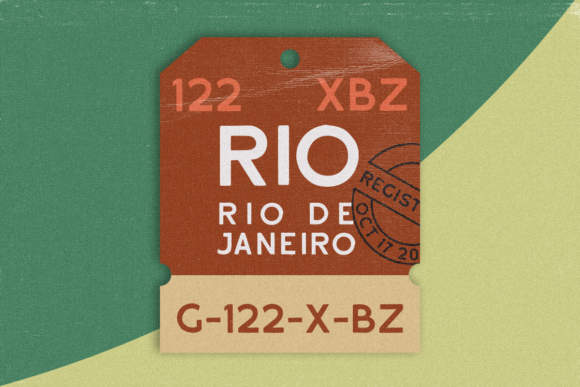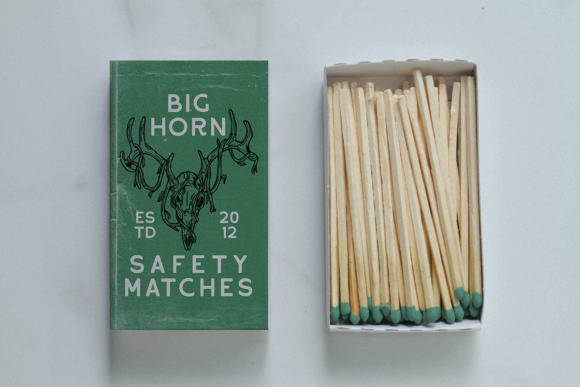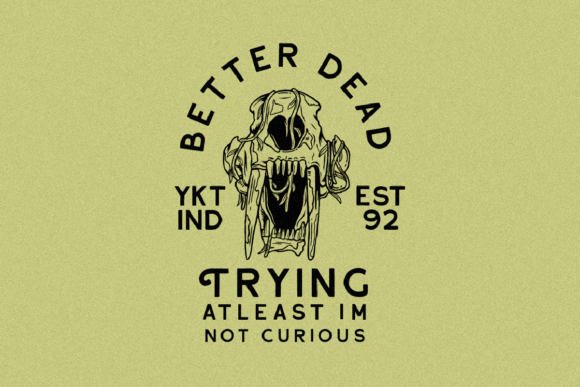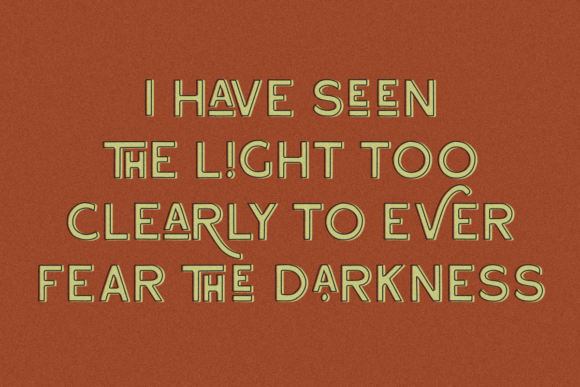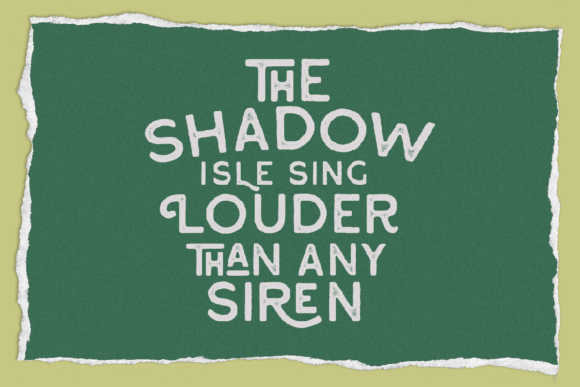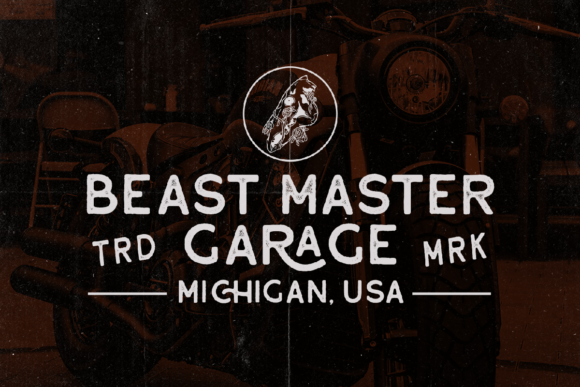
Introduction to Reliva Font
As a designer, there’s nothing quite like the rush of creativity that comes with finding the perfect font for your next project. You’ve spent hours poring over design resources, searching for that elusive combination of style and functionality. And then, it happens – you stumble upon a gem that makes your design dreams come true.
Discovering the Magic of Reliva Font
Meet Reliva Font, a stunning organic sans serif font that’s about to revolutionize your design game. With its wide range of alternates and ligatures, this font offers unparalleled versatility and creativity. Whether you’re working on a high-quality brochure, a free download for a charity, or a design project with a transparent background, Reliva Font has got you covered.
Unlocking the Full Potential of Reliva Font
Not only does Reliva Font boast an impressive range of features, but it also comes with 6 bonus illustrations that will take your creative project to the next level. With its high-quality design and transparent background, this font is a must-have for any serious designer looking to elevate their work. So why wait? Download Reliva Font today and unlock a world of creative possibilities!
Key Features of Reliva Font
- Unique, modern design with a clean and elegant aesthetic, perfect for various creative projects.
- Designed to be highly legible and versatile, making it suitable for use in a variety of creative projects, from digital art to print materials.
Honest Review: Reliva Font
As a designer, I’m always on the lookout for high-quality design resources to elevate my creative projects. The Reliva Font is one such resource that caught my attention, and I’m excited to share my honest review.
- The Reliva Font boasts a sleek and modern design aesthetic that’s perfect for contemporary projects.
- The font is highly customizable, allowing for easy adjustments to size, color, and spacing.
- The font’s character set is limited, which may not be suitable for projects requiring extensive text support.
- The transparent background option can be finicky, requiring some trial and error to achieve the desired effect.
Overall, the Reliva Font is a solid design resource that can add a touch of sophistication to your creative projects. While it may have some limitations, its high-quality design and free download option make it a worthwhile consideration for designers seeking a reliable font solution.
Reliva Font is ideal for creative projects such as logos, business cards, and brochures. It is also suitable for presentations, documents, and other materials where a high-quality font is required.